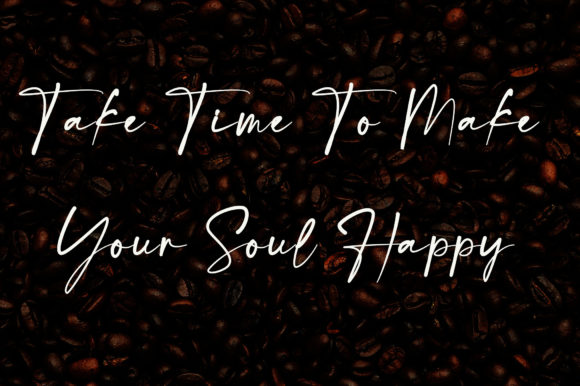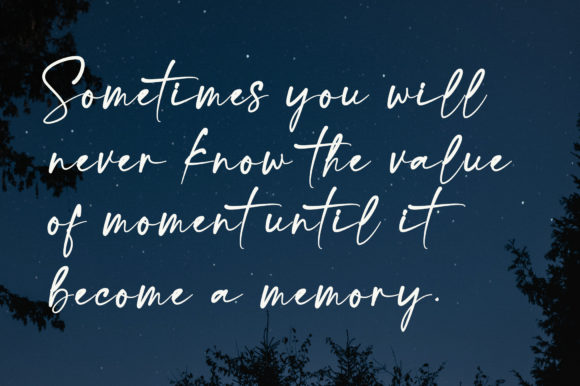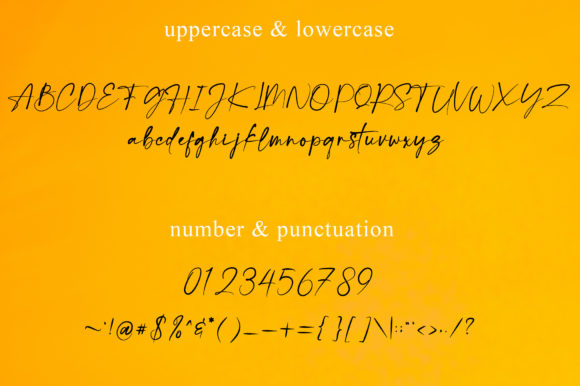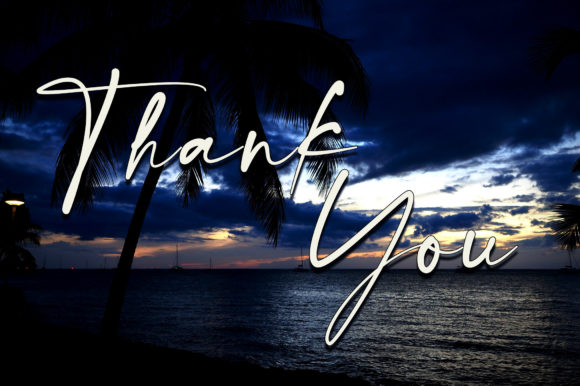
Introducing Happy Nurse Font: The Perfect Handwritten Style for Crafty Projects
Are you a designer or crafter looking for a unique and personalized touch for your projects? Look no further than the Happy Nurse font, a thin and flowing handwritten font that is sure to bring a touch of elegance and whimsy to your creations. In this article, we’ll take a closer look at the Happy Nurse font, its features, and how you can use it to elevate your crafty ideas.
What is Happy Nurse Font?
Happy Nurse is a one-of-a-kind handwritten font that is characterized by its thin and flowing strokes. This original style is perfect for crafty projects that require a personal touch, such as letterheads, titles, and stationery. The font’s elegant and cursive design makes it ideal for a wide range of applications, from DIY crafts to professional design projects.
Key Features of Happy Nurse Font
- Thin and flowing strokes: The Happy Nurse font features delicate and smooth strokes that give it a unique and elegant look.
- Handwritten style: This font is a true handwritten style, making it perfect for projects that require a personal touch.
- Versatile: Happy Nurse font can be used for a wide range of crafty ideas, from letterheads and titles to stationery and more.
- Easy to read: Despite its thin strokes, the Happy Nurse font is easy to read, making it perfect for body text and headings.
How to Use Happy Nurse Font in Your Projects
The Happy Nurse font is perfect for a wide range of crafty projects, including:
- Letterheads and titles: Add a touch of elegance to your letterheads and titles with the Happy Nurse font.
- Stationery: Create personalized stationery, such as greeting cards, invitations, and thank-you cards, with the Happy Nurse font.
- DIY crafts: Use the Happy Nurse font to add a personal touch to your DIY crafts, such as scrapbooking, journaling, and more.
- Design projects: Incorporate the Happy Nurse font into your professional design projects, such as brochures, flyers, and posters.
Tips for Using Happy Nurse Font
- Use it sparingly: The Happy Nurse font is best used sparingly, such as for headings or titles, to add a touch of elegance to your projects.
- Pair it with other fonts: Pair the Happy Nurse font with other fonts to create a unique and interesting contrast.
In conclusion, the Happy Nurse font is a unique and versatile handwritten font that is perfect for crafty projects that require a personal touch. Its thin and flowing strokes, elegant design, and ease of use make it a great addition to any designer’s or crafter’s toolkit. Whether you’re working on a DIY craft or a professional design project, the Happy Nurse font is sure to bring a touch of elegance and whimsy to your creations.